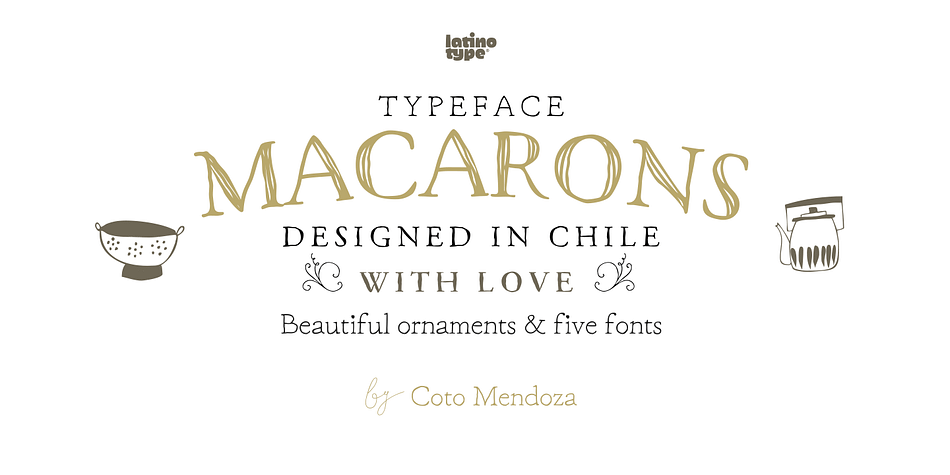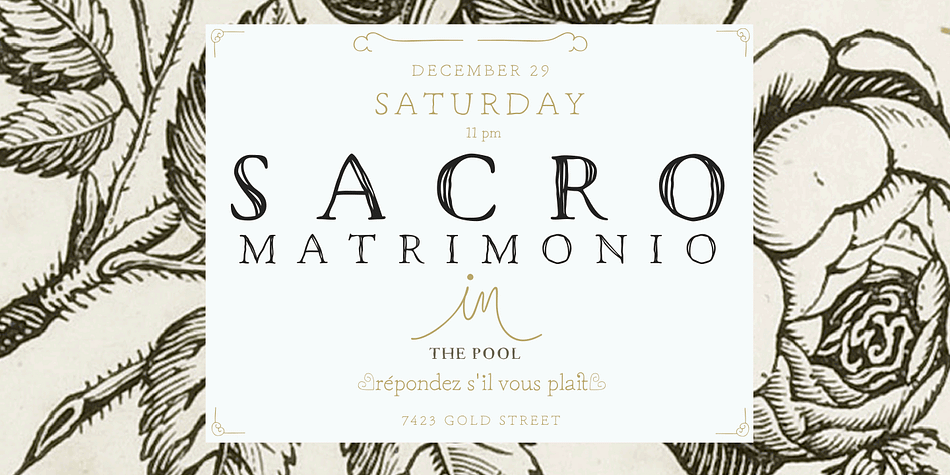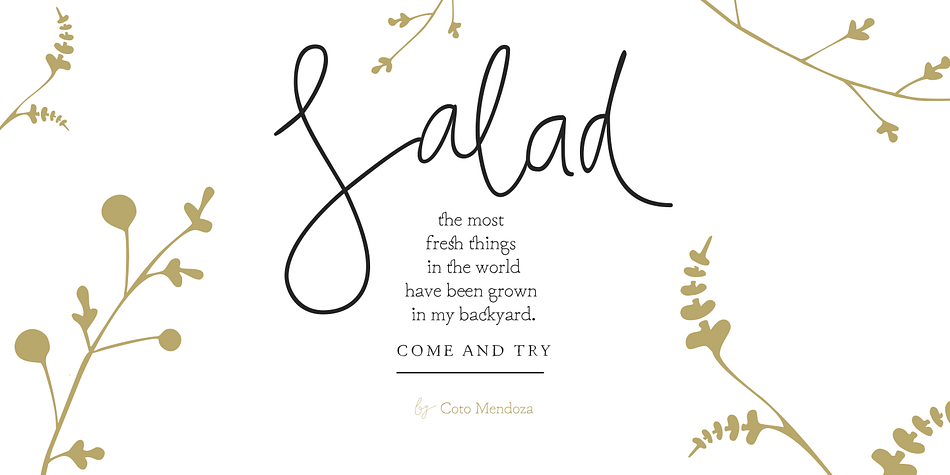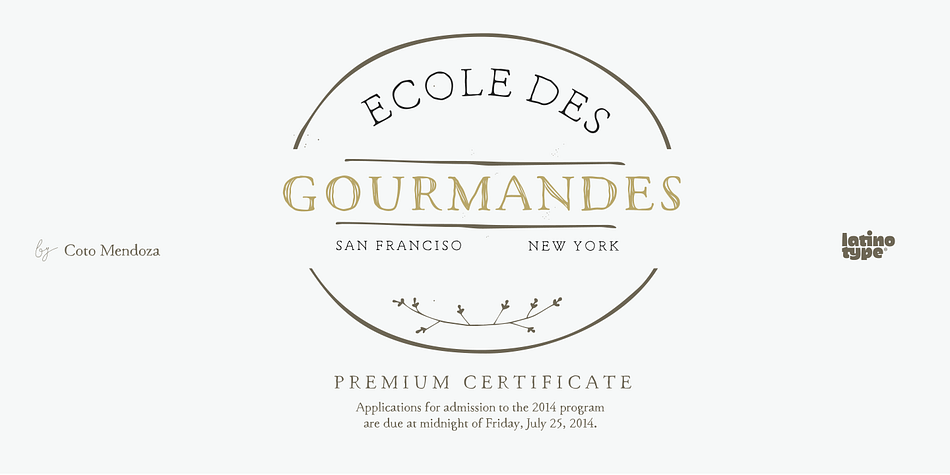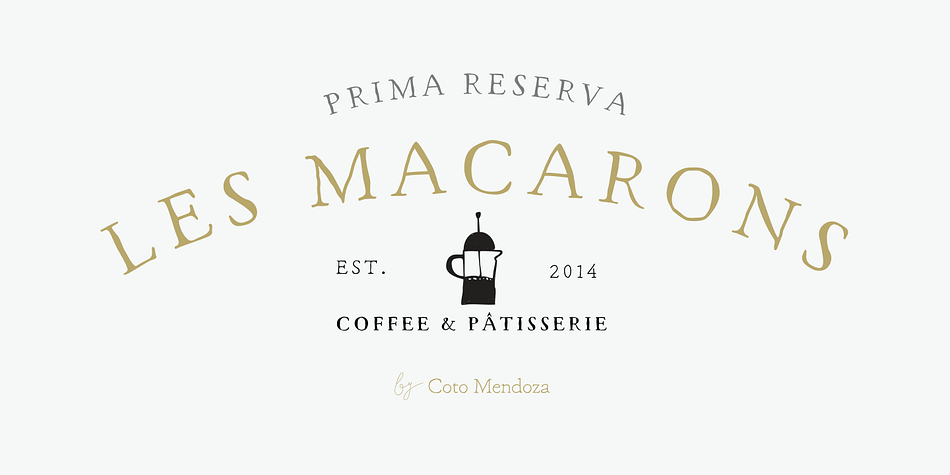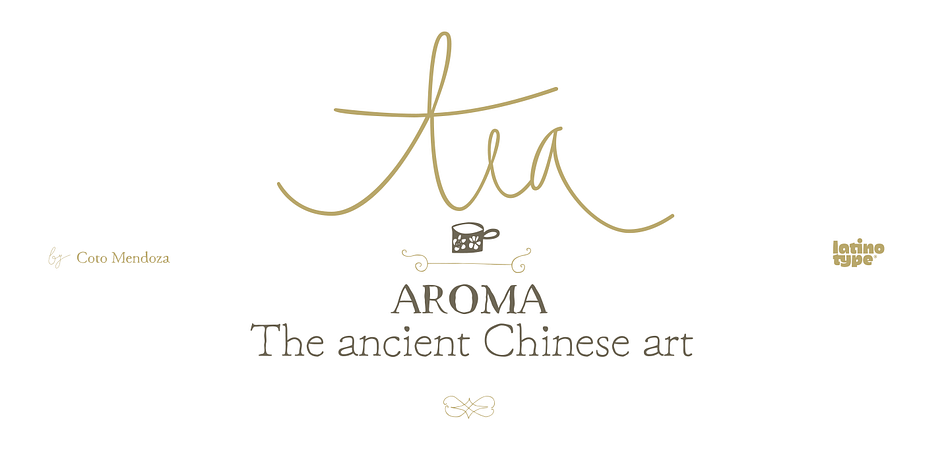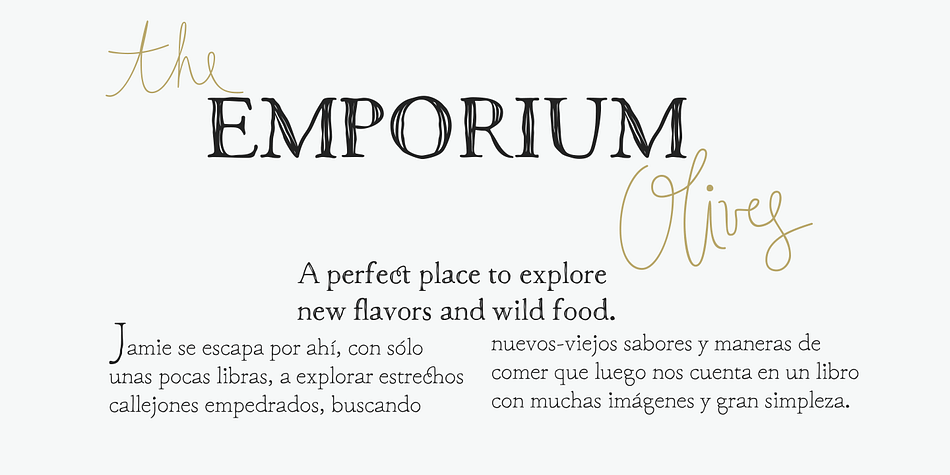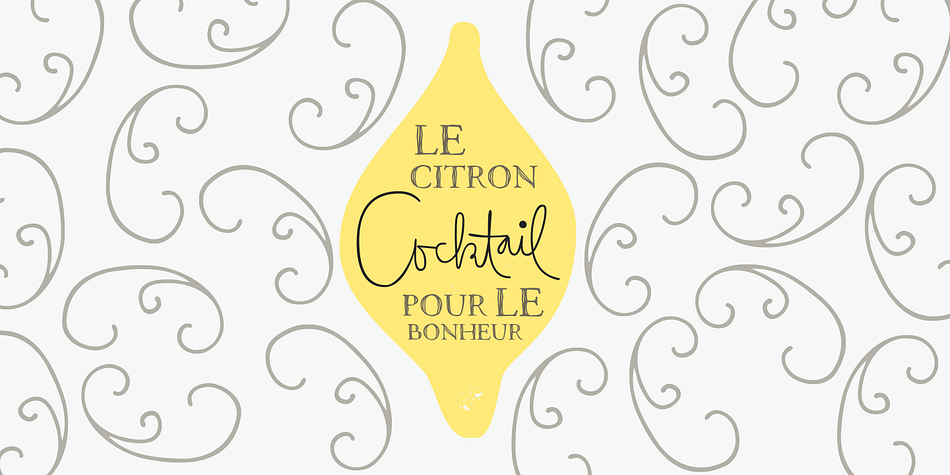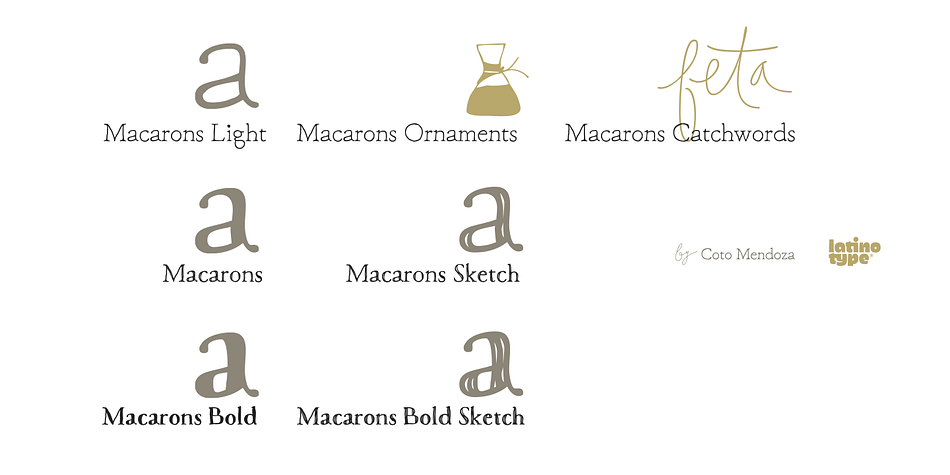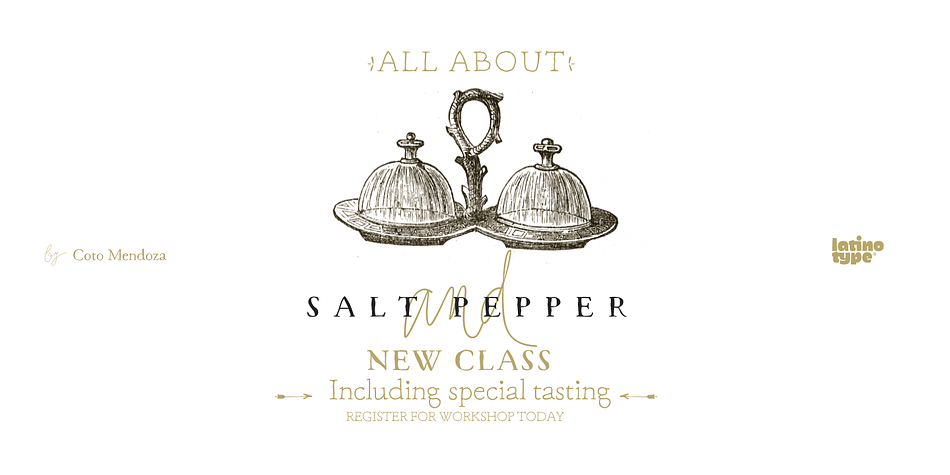
Macarons is a dingbat and hand drawn font family. This typeface has seven styles and was published by Latinotype.
Macarons is a display type based on the classic Garamond typeface. It’s inspired by the foodie culture and the slow food movement, which began as a rebellion against fast food and has now grown to a global scale. Every day, thousands of people around the world take pictures of their food, look for new recipes to try and recover old ones, enjoy wine-pairing, and value locally produced food.
Macarons is a fresh and spontaneous looking typeface that has been designed by Coto Mendoza, who also has developed a hand-made product line (Ride my Bike, Four Seasons, D.I.Y. Time, Dans le Cuisine and In a Jar). This font is not constructed out of modules: each character is drawn by hand.
The Macarons font family consists of a monoline version, regular and bold weights, and a set of gestural catchwords, which reflects the use of the ruling pen as a freestyle tool. Ornaments and dingbats are also included.
Macarons is ideal for cookbooks, menus, liquor bottle labels, food packaging, wedding invitations, greeting cards, tea boxes, food blogs, small shops, cupcake bakeries and so on.